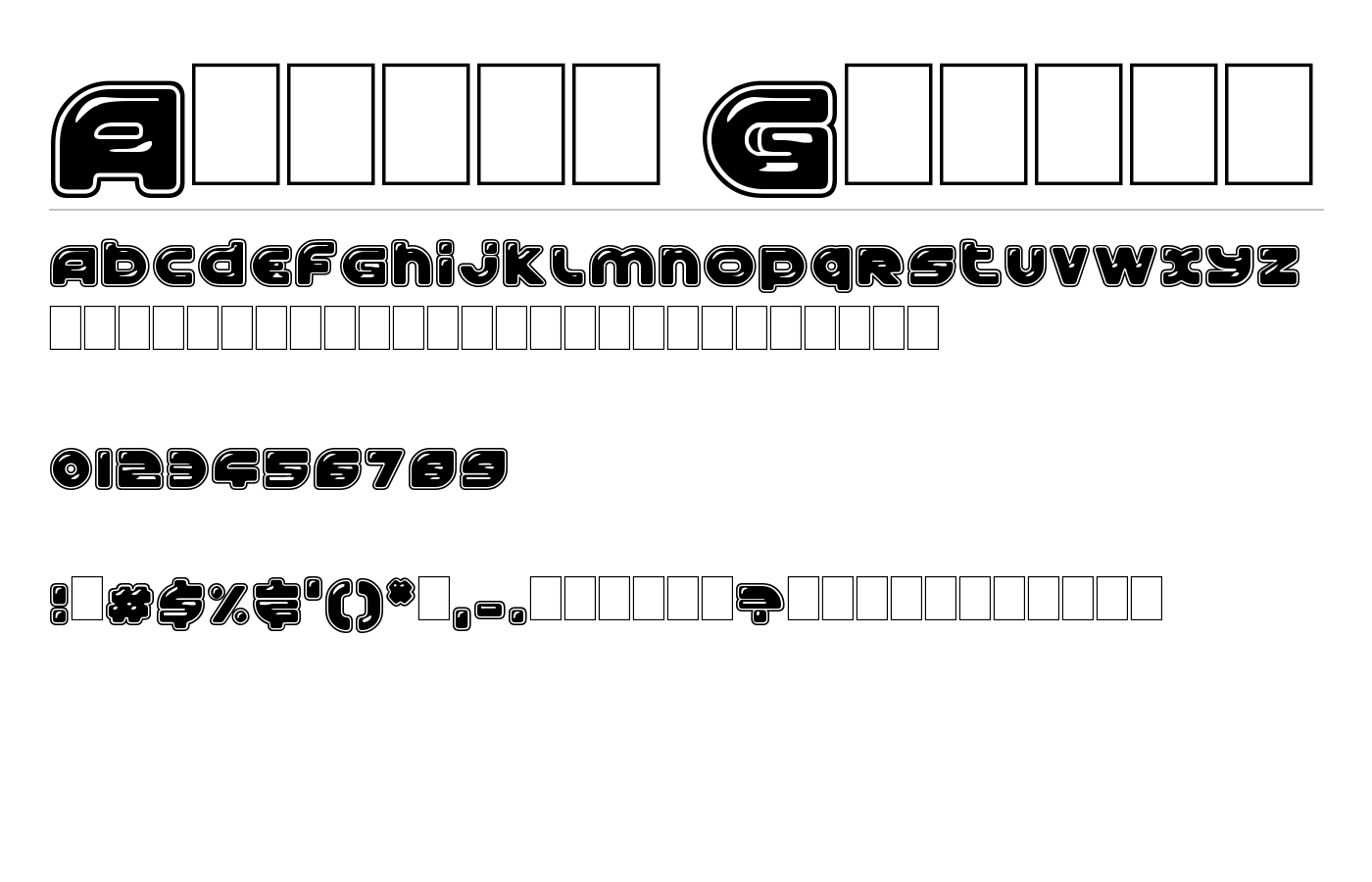
Astral Groove is a bold, playful display font with thick, rounded shapes and a layered outline that gives it a retro-futuristic vibe. Its chunky, geometric letters create a fun and energetic feel, making it ideal for eye-catching headlines, posters, and branding that want to convey a sense of creativity and uniqueness. This font shines in bold, modern designs where personality and a standout style are key.
Astral Groove Font
About Astral Groove Font
| Font family | Astral Groove Font |
| Designer | Imagex |